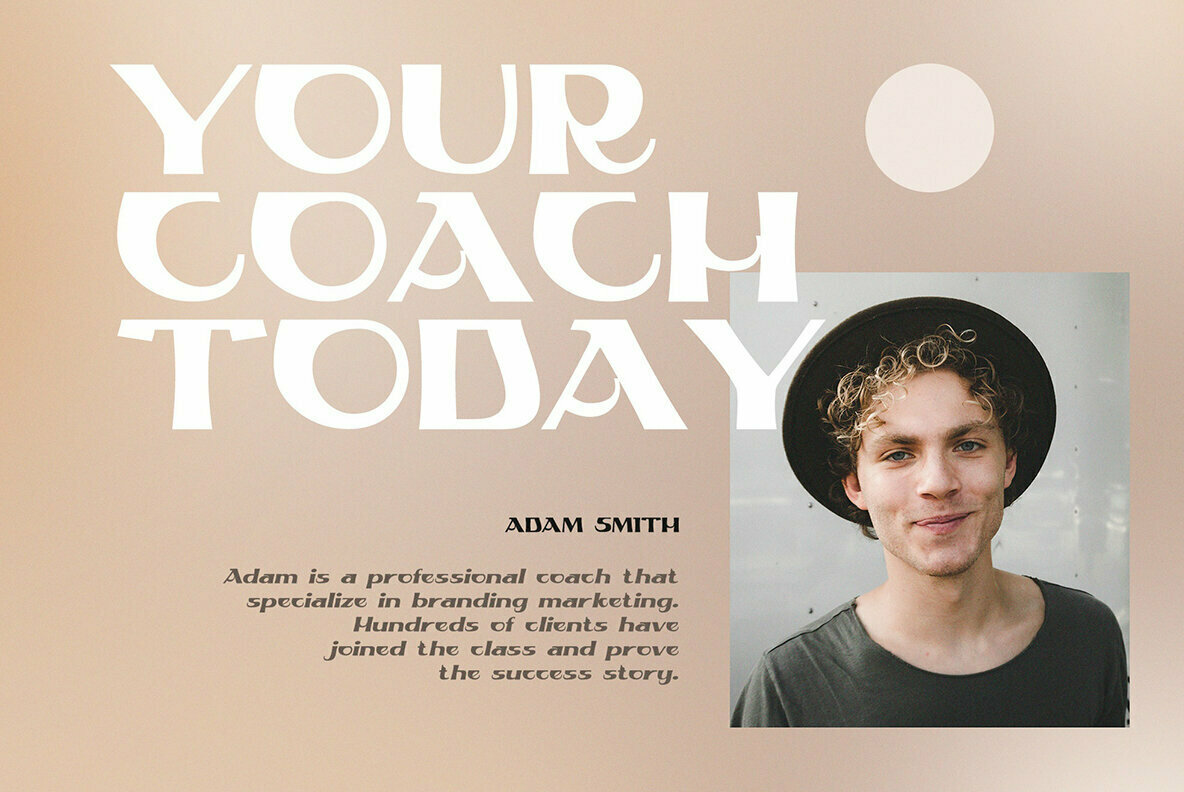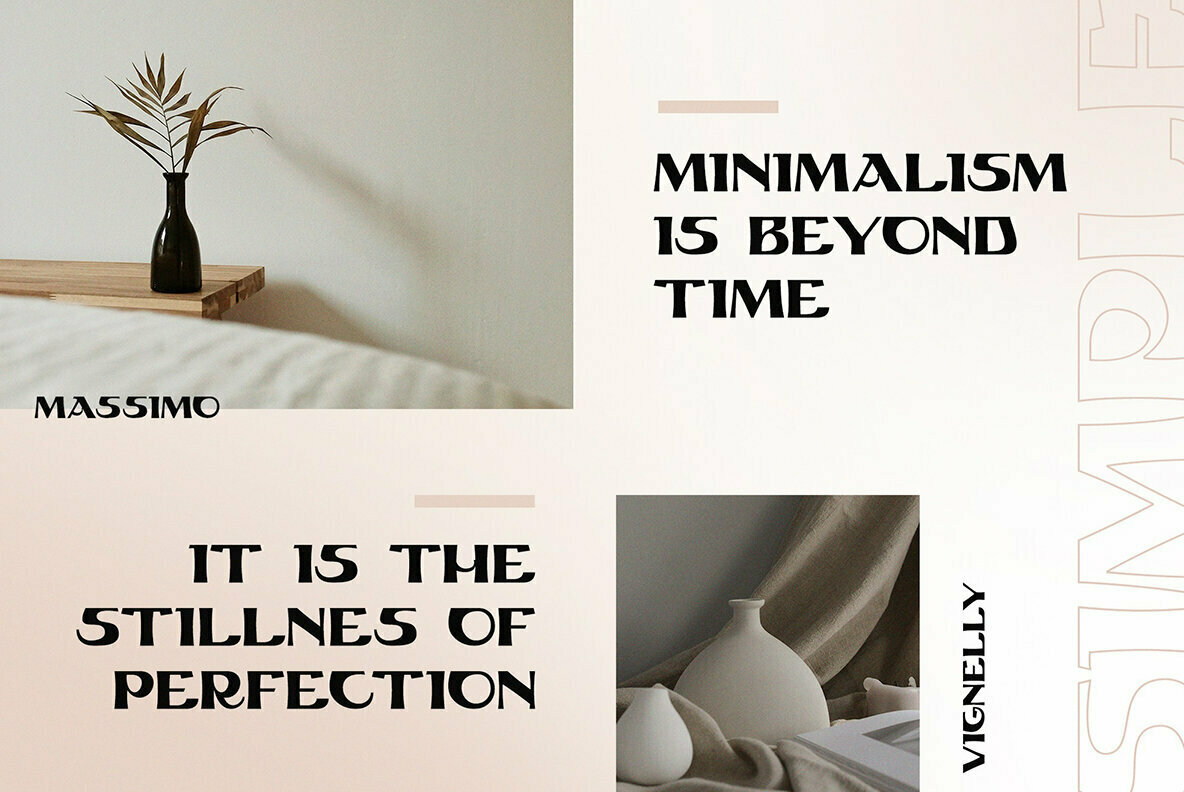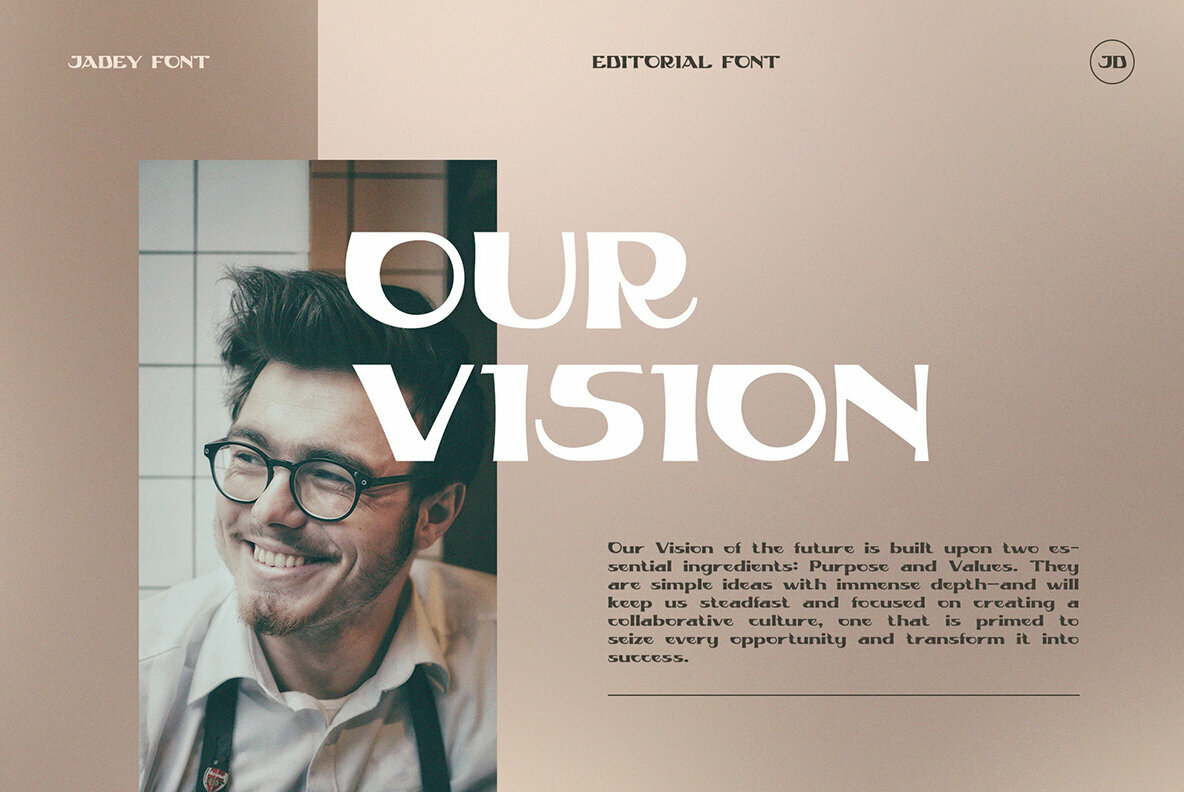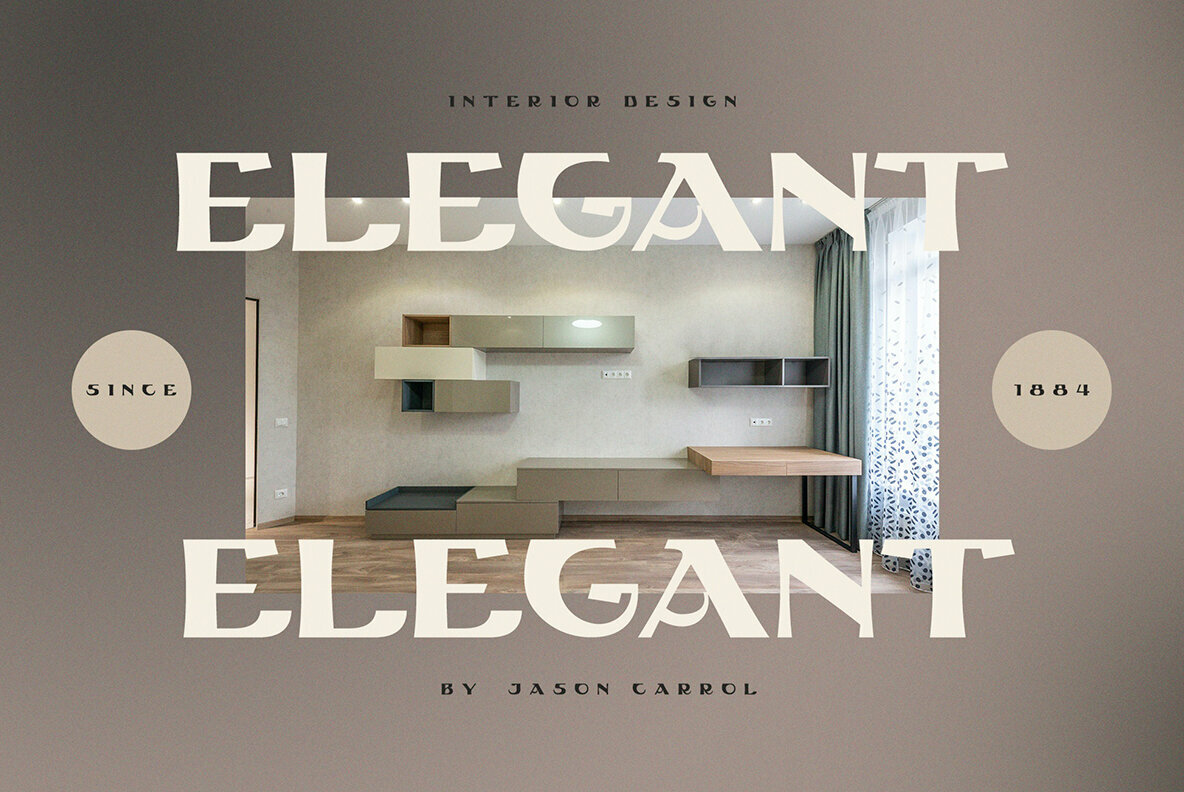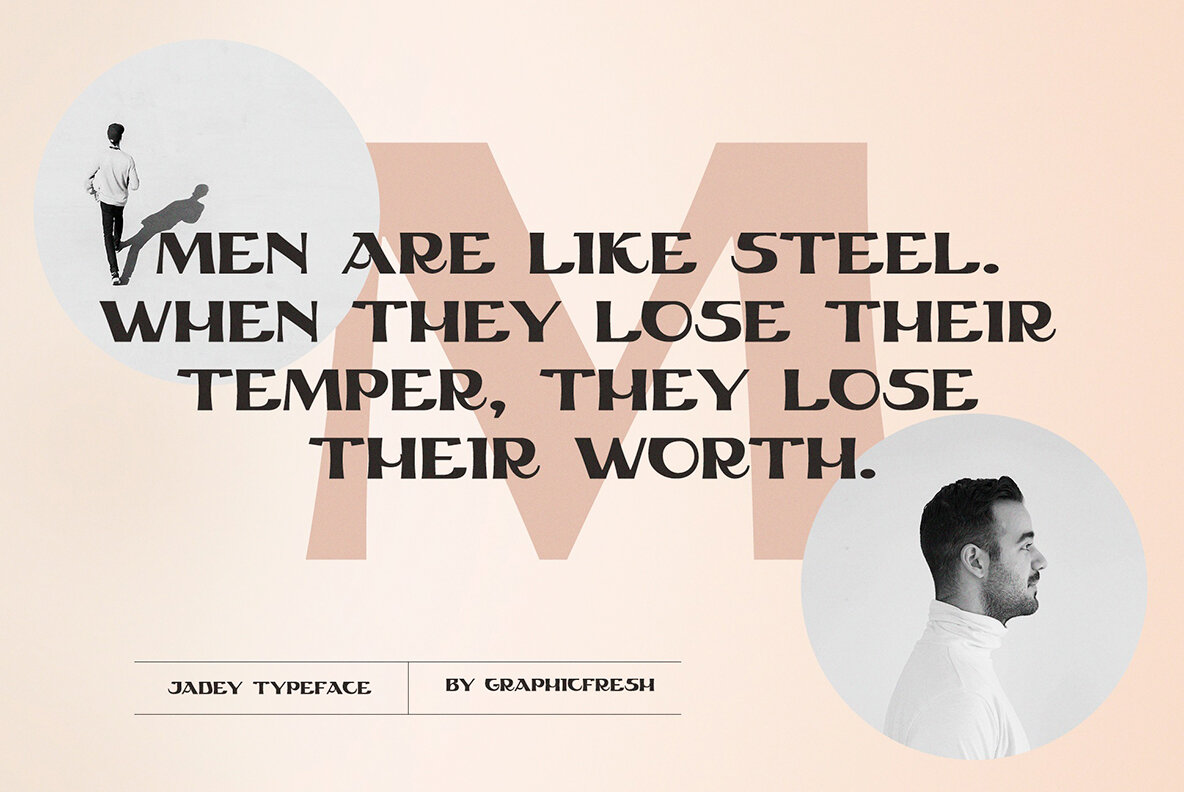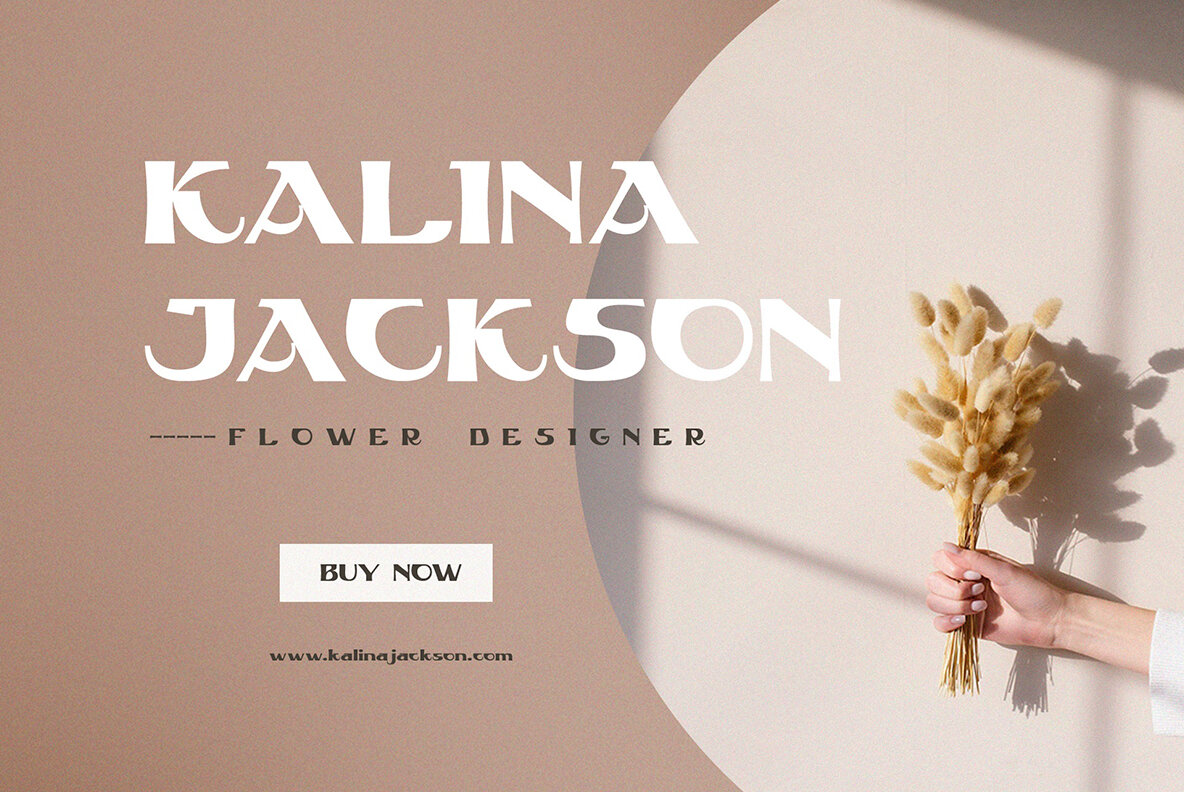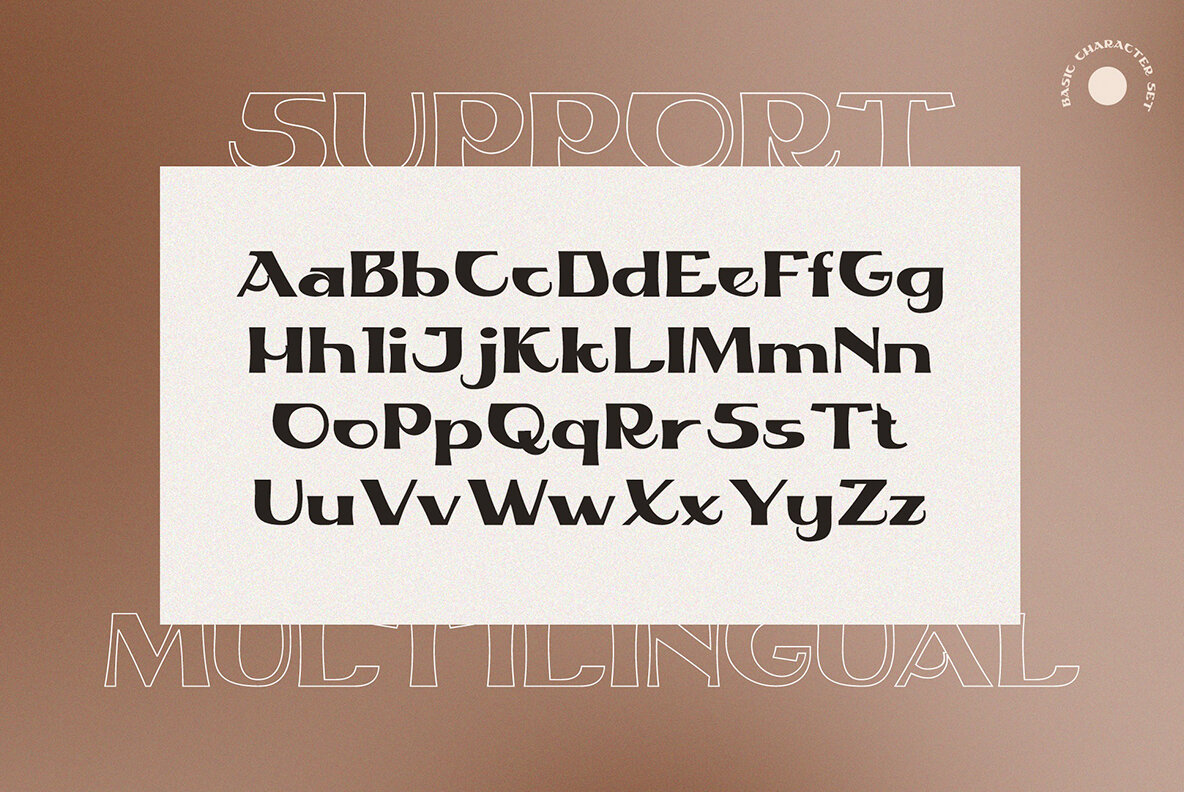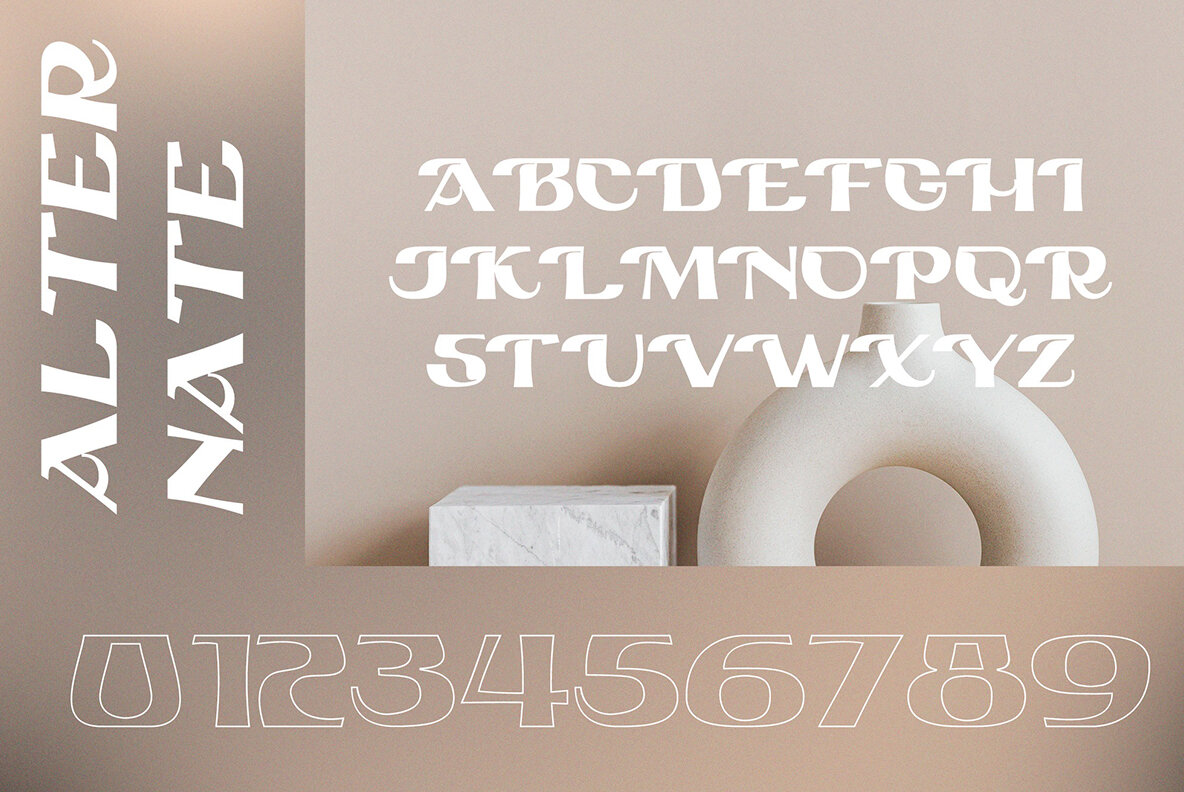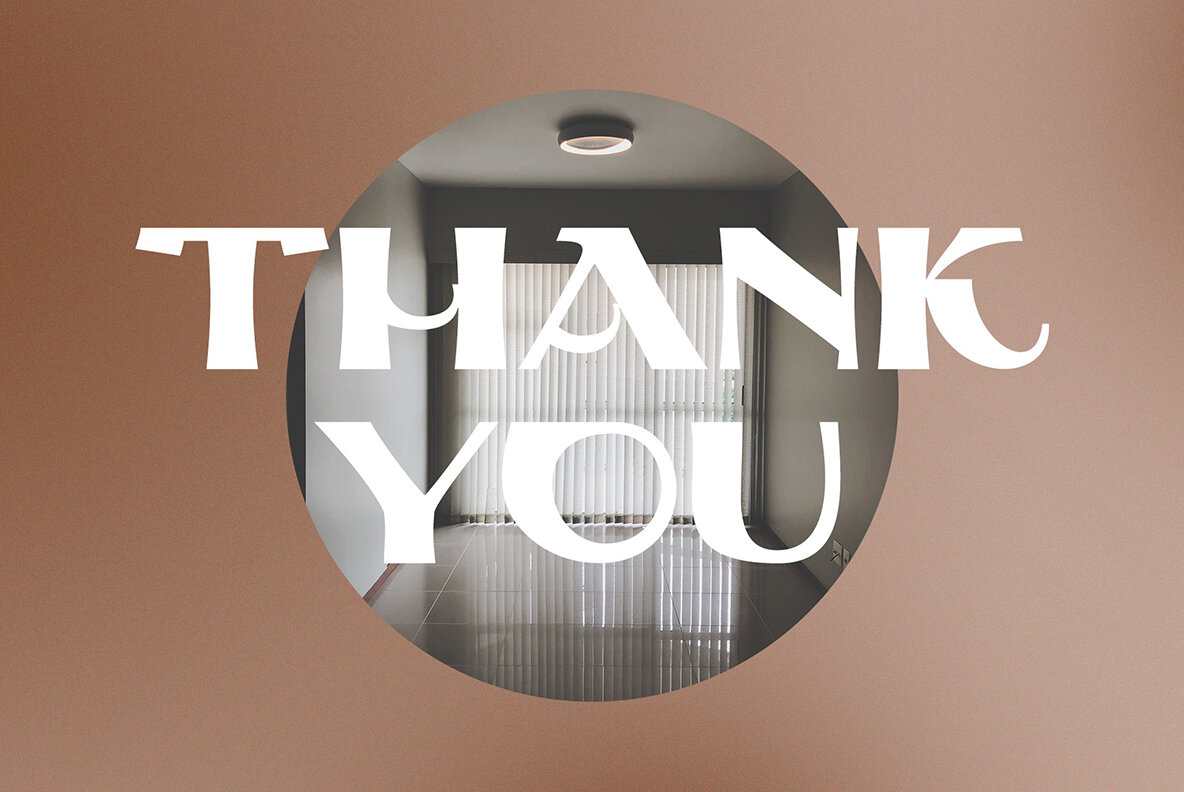
Jadey Font
Jadey
Jadey Oblique
Jadey Outline
Jadey Outline Oblique
Jadey is a serif font that beautifully marries the timeless elegance of classic design with today's modern aesthetics. Infused with elements reminiscent of Indonesia's rich cultural heritage, each letter is carefully crafted to evoke a sense of nostalgia while fitting seamlessly into contemporary projects. Whether you're working on branding, editorial designs, or digital media, Jadey offers a versatile solution for your creative vision. Features: This font encourages creativity by offering a range of styles and supports numerous languages, making it perfect for those looking to blend traditional influences with modern flair. Embrace the classic yet contemporary look with Jadey.Jadey: The Fusion of Classic and Modern Serif